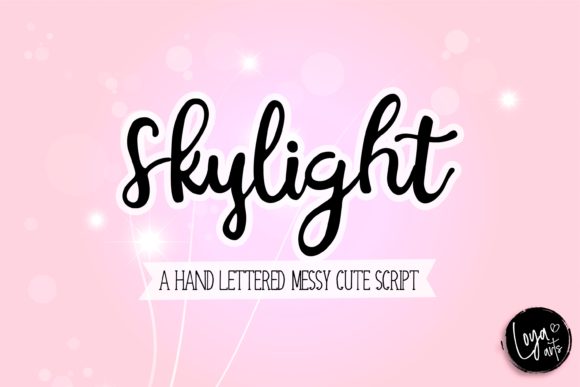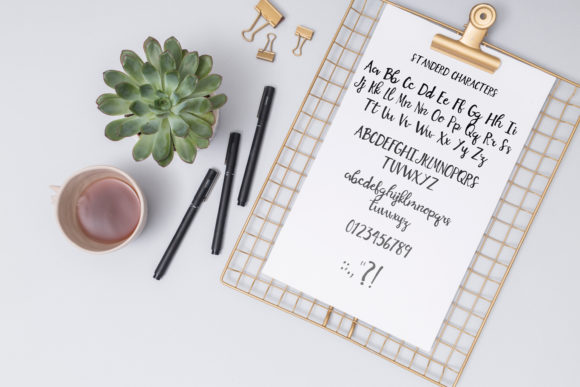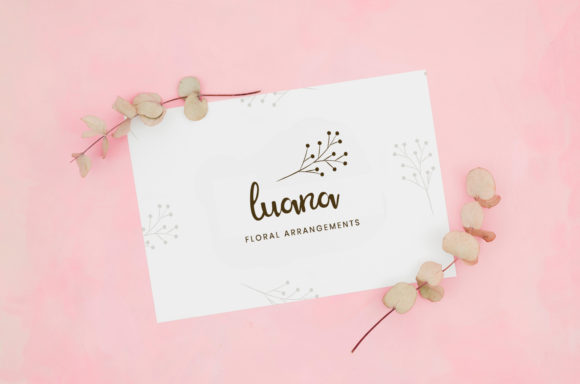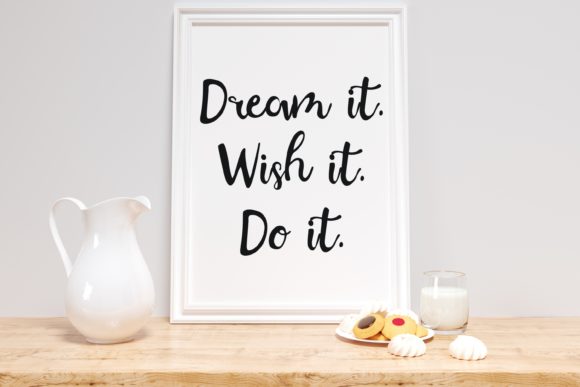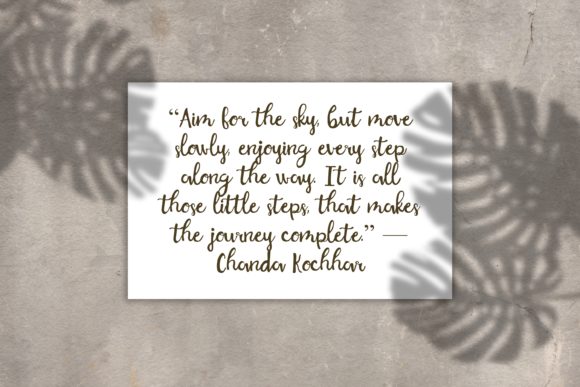
Skylight Font
About Skylight Font
Skylight is a cute handwritten font! Whether you’re looking for fonts for Instagram or calligraphy scripts for DIY projects, Skylight will turn any creative idea into a true piece of art!